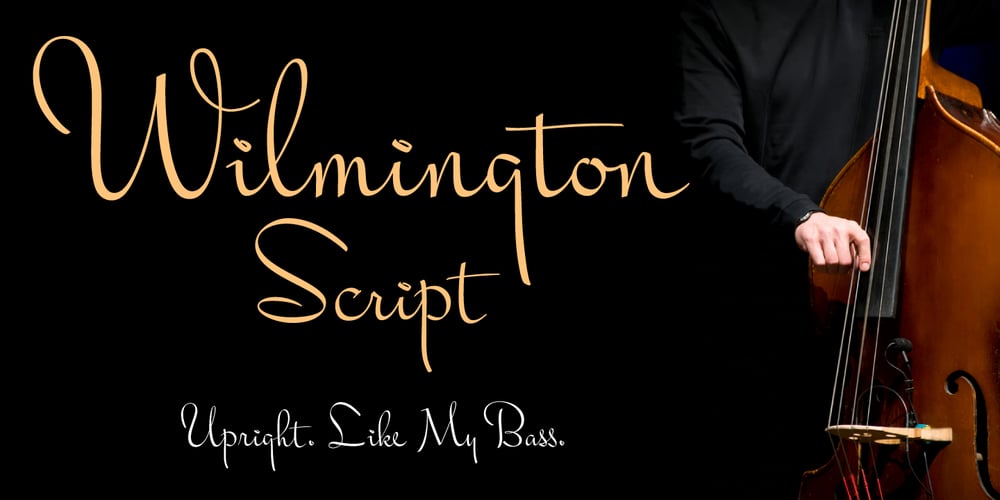
Wilmington BF Font Family was designed by John Bomparte and published by Bomparte’s Fonts. Wilmington BF contains 1 styles and family package options. This expressive, upright script was inspired by 1940s penmanship. Its OpenType programming will enhance your typography via features such as automatic ligatures and contextual alternates. Also included is a Stylistic Alternate for lowercase letter “g”.